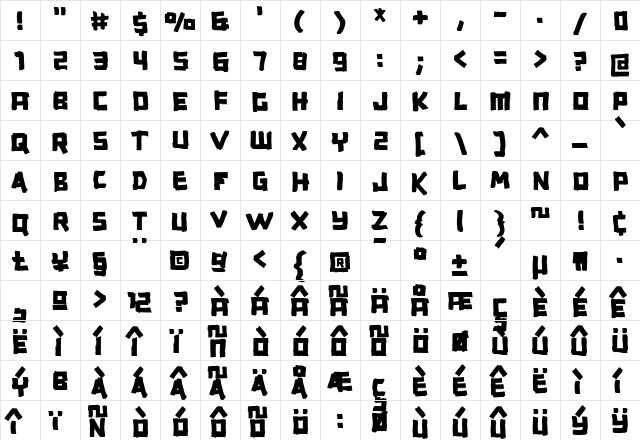
Expos Regular
| Foundry | YouWorkForThem |
| Designer | Michael Cina |
Design Context for Expos Typeface
Expos is a composed and adaptable typeface that performs quietly and consistently across a wide range of design contexts.